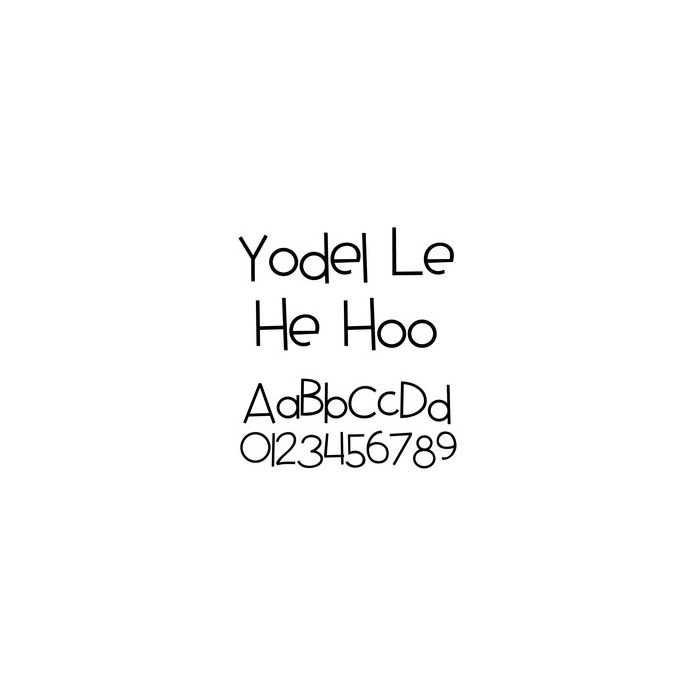
yodel le he hoo font
This fun font is perfect for journaling. For more fonts like this please visit: http://www.letteringdelights.com/lettering/fonts-c1c3